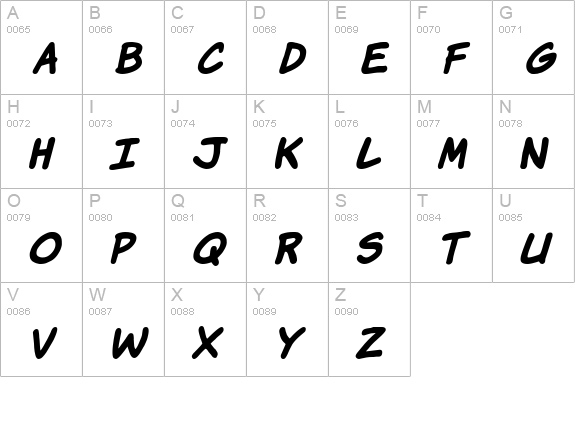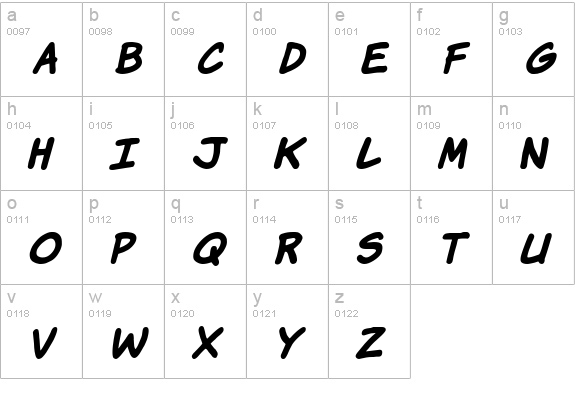
Komika Hand Bold Italic is a strong, high-contrast, italic variant in the Komika typeface family \xE2\x80\x94 well suited to headlines, attention-grabbing titles, and strong calls-to-action.
The Komika Hand Bold Italic font is a dynamic and eye-catching typeface that exudes creativity and personality. Its bold and italicized design adds a touch of flair to any project, making it perfect for titles, headers, and other prominent text elements. The hand-drawn style of this font gives it a unique and playful look that is sure to captivate your audience. What makes Komika Hand Bold Italic even more appealing is that it is available for free download at FontsMarket.com. This means that you can easily access this delightful font and use it in your designs without any cost. Whether you're working on a graphic design project, branding materials, or any other creative endeavor, Komika Hand Bold Italic is a versatile and expressive font that will help you make a bold statement. Download it now and add a touch of whimsy to your next project!